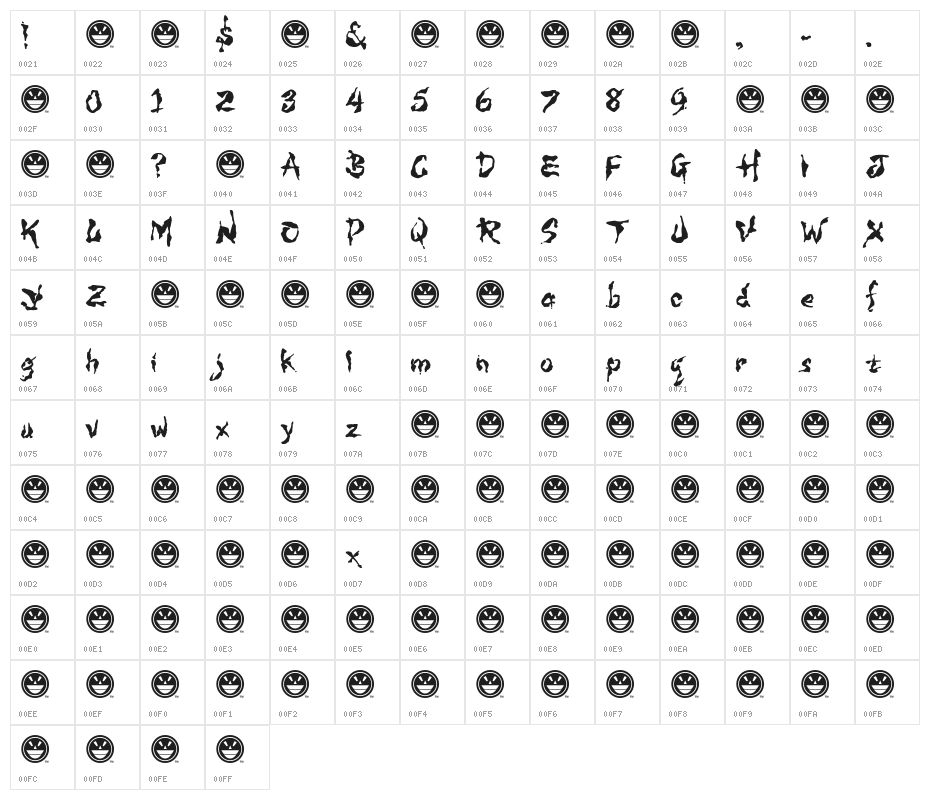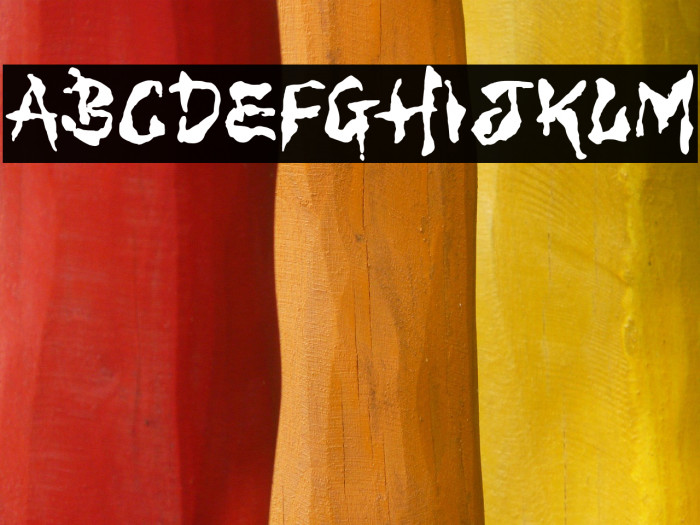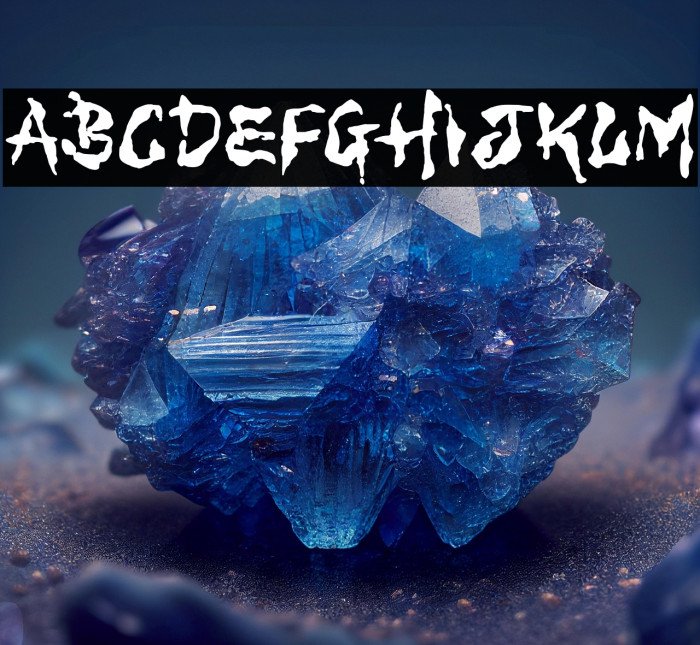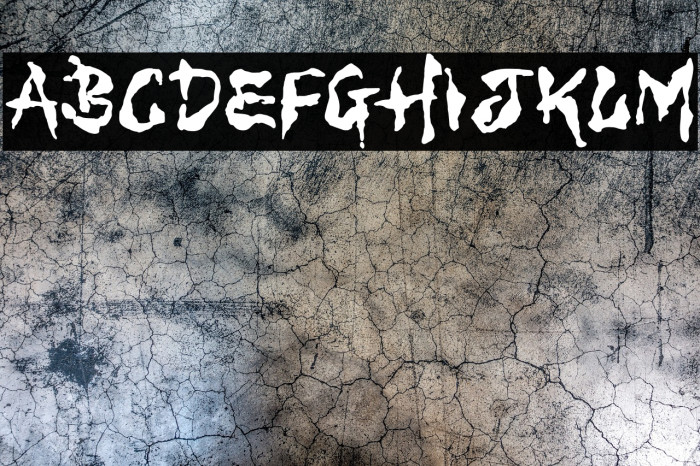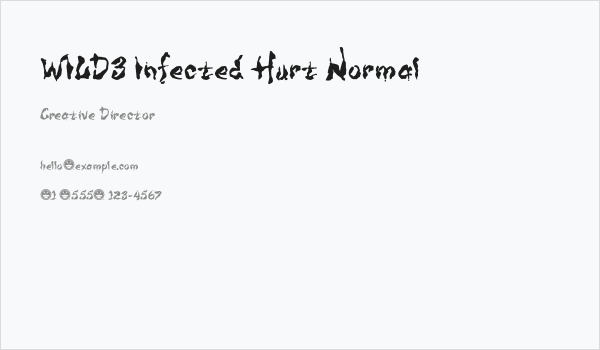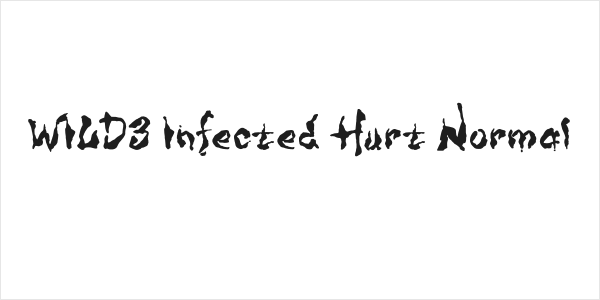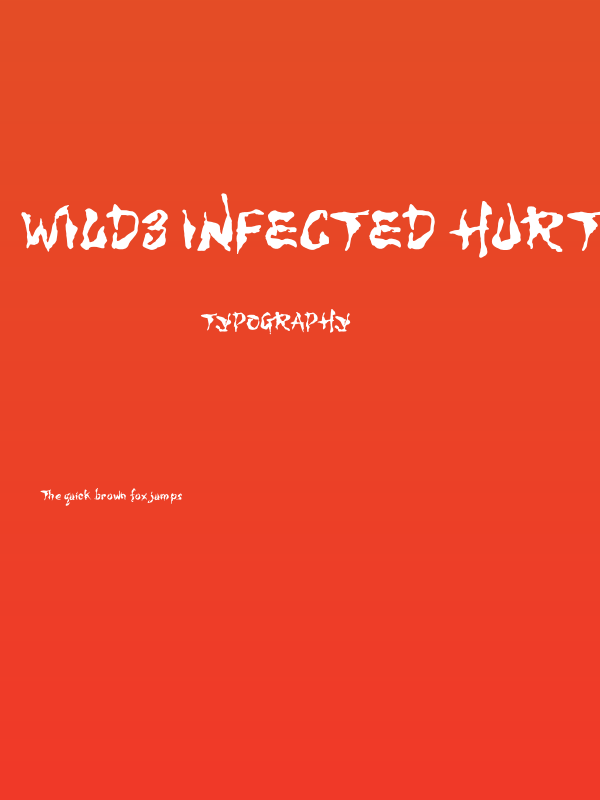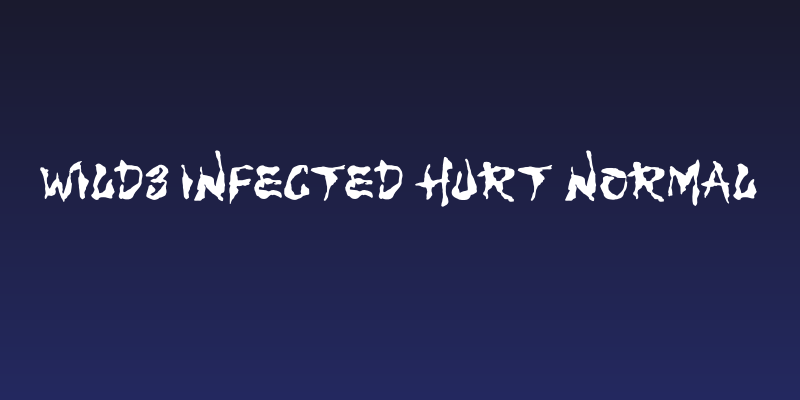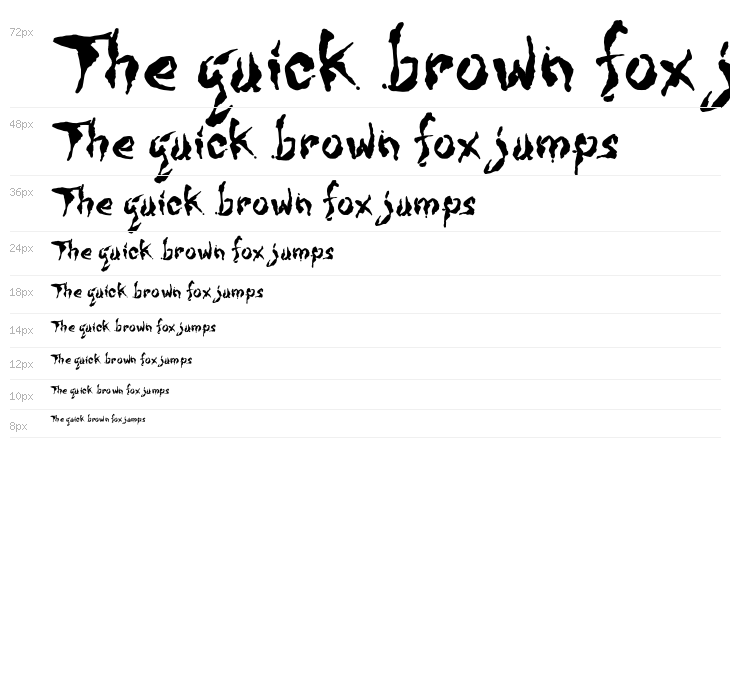
WILD3 Infected Hurt Normal Font
WILD3 Infected Hurt Normal Description
This font features a rugged, distressed style with an appearance reminiscent of brush strokes or ink splatters. The characters have an irregular, organic shape, giving them a dynamic and energetic feel. The uppercase and lowercase letters maintain a consistent style, with jagged edges and varying stroke thicknesses that add to the chaotic aesthetic. Numbers and special characters follow the same design principles, ensuring a cohesive look across all glyphs. This font is ideal for projects that require a bold, edgy, and unconventional look.
| Proposed Projects | Ideal for horror-themed designs, music album covers, graffiti art, and edgy branding. |